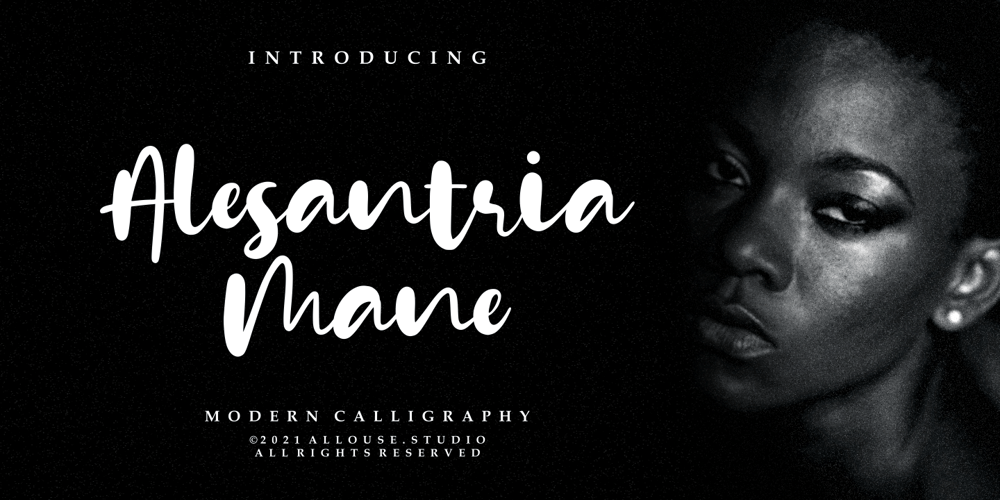
Alesantria Mane Font Family was designed by Fachrizal Yusuf and published by Allouse Studio. Alesantria Mane contains 1 styles and family package options. Alesantria Mane a Modern Calligraphy Font.Alesantria Mane is perfect for any tittles, logo, product packaging, branding project, megazine, social media, wedding, or just used to express words above the background. Alesantria Mane also come with Multi-Lingual Support.Enjoy the font, feel free to comment or feedback, send me PM or email. Thank You!